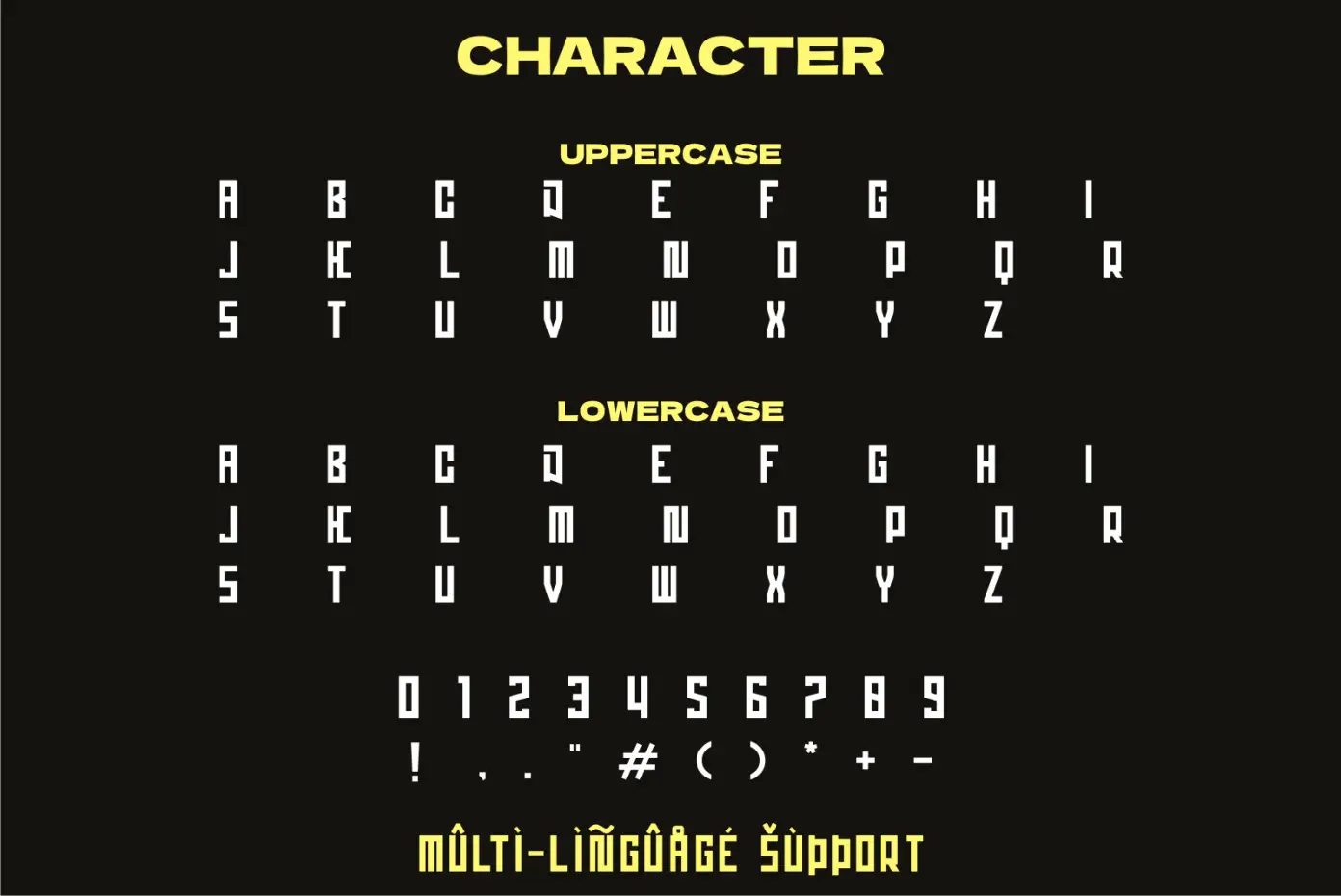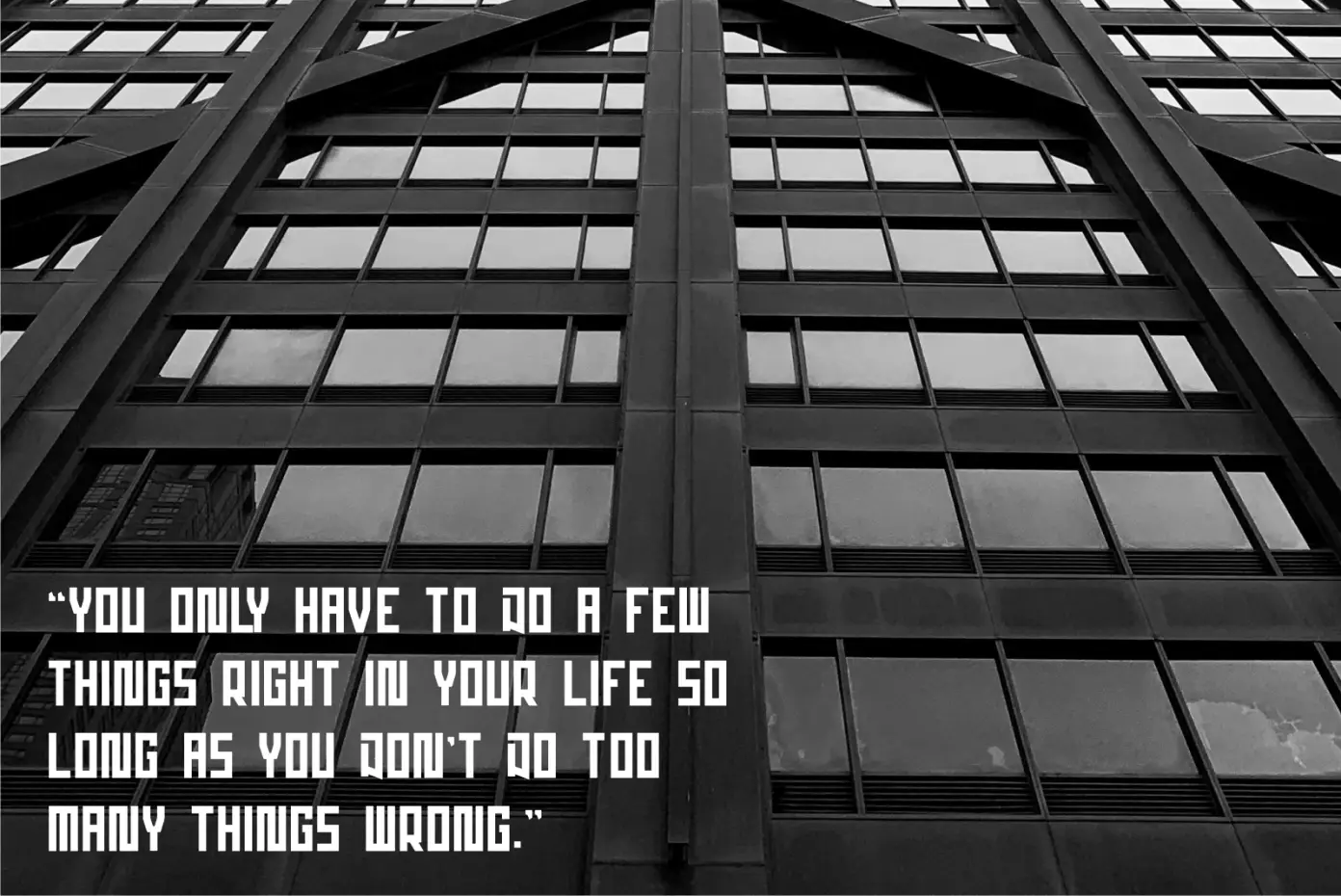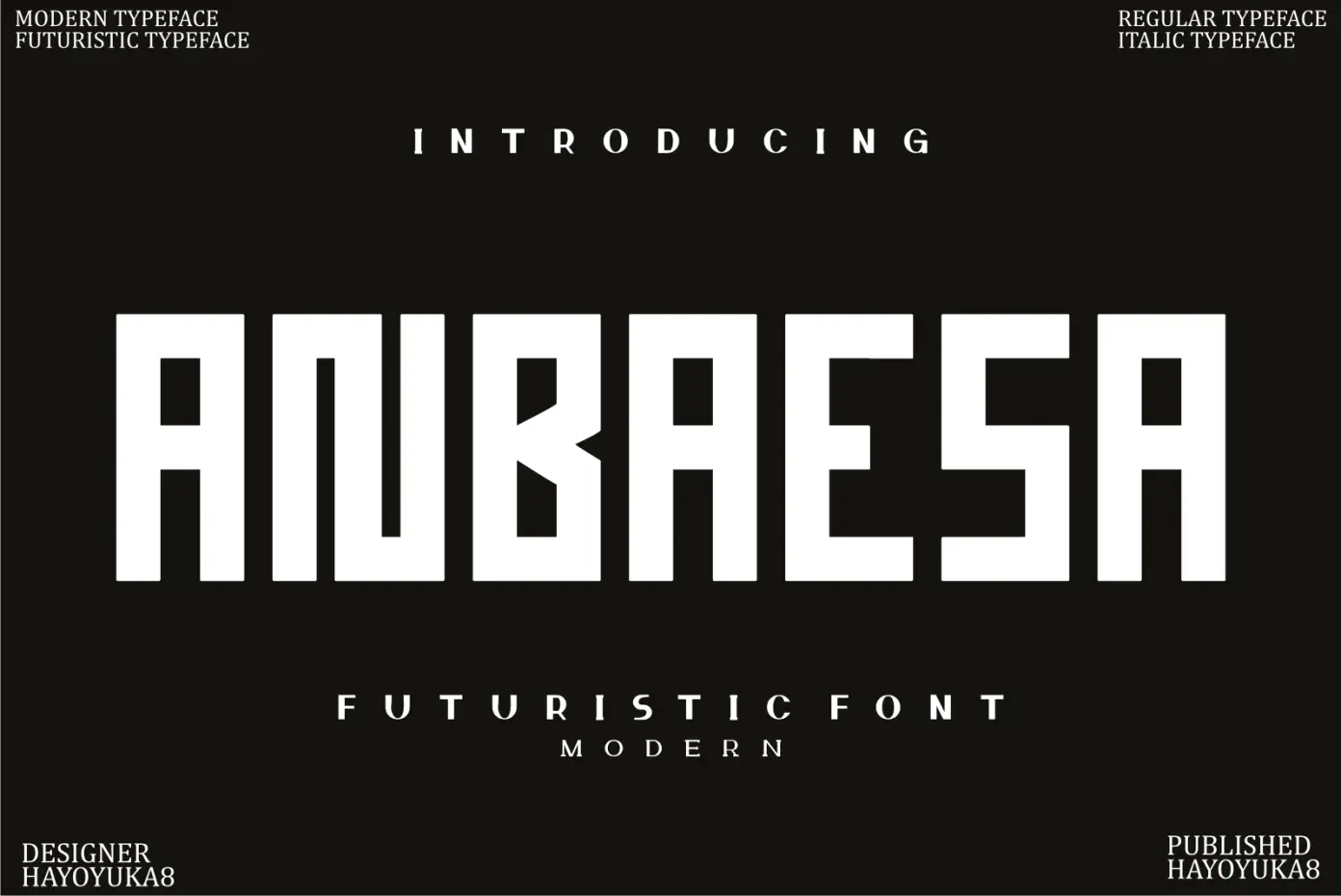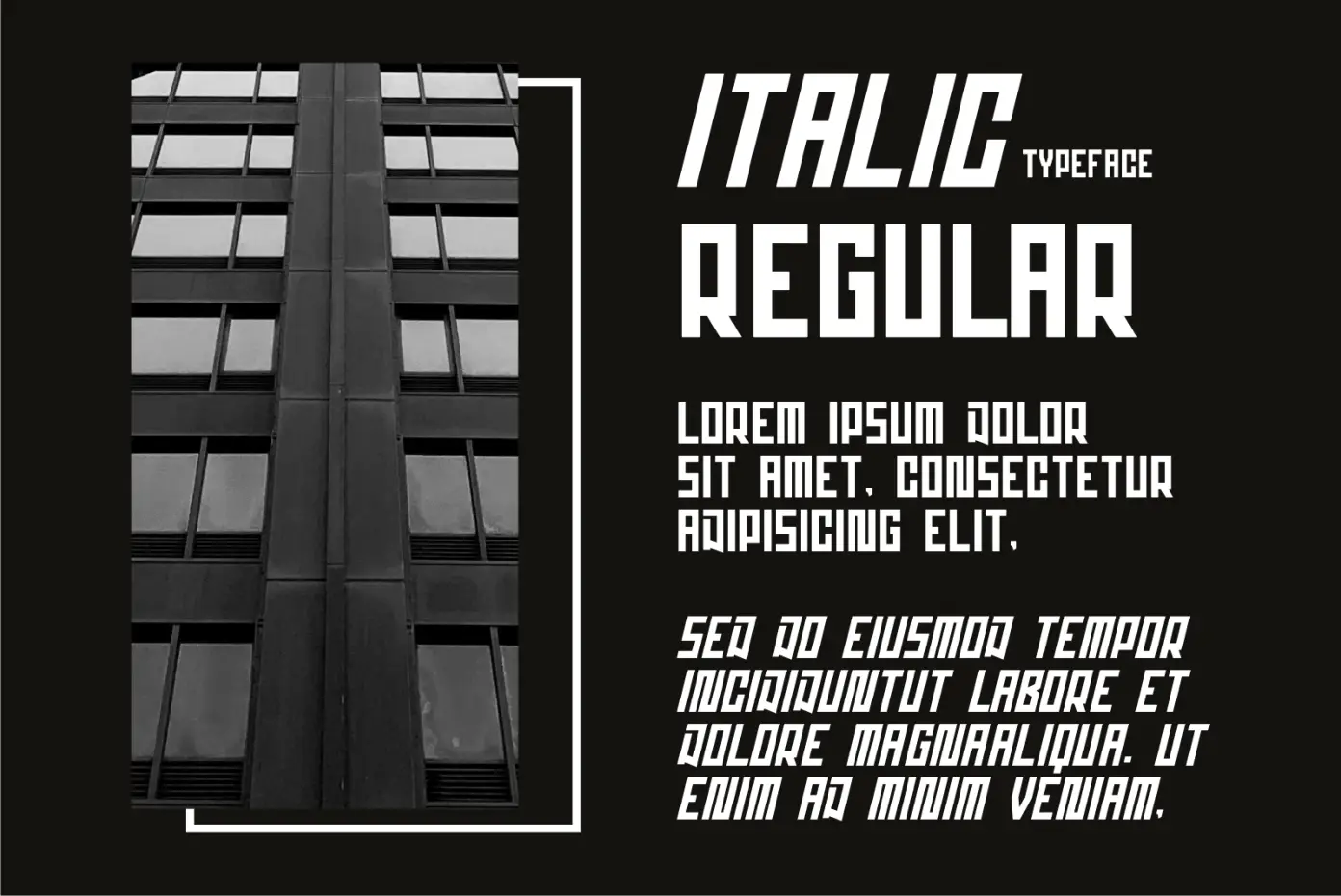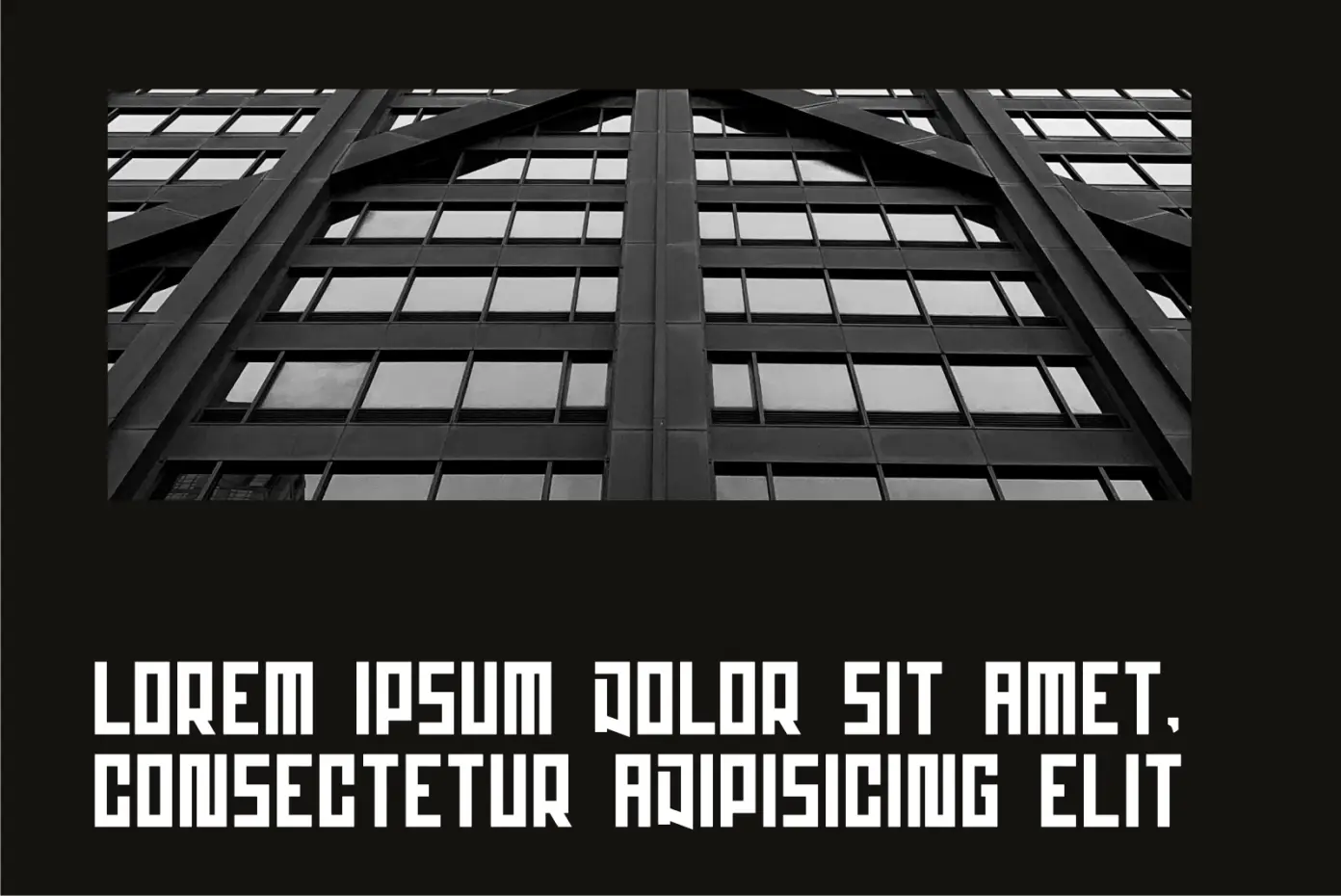
The Anbaesa Display Font is a striking typeface designed to make a bold statement. With its unique character shapes and artistic flair, this font is perfect for various creative projects.
- Stylish display font with distinctive letterforms
- Available in multiple weights for versatility
- Supports multilingual characters
- Styles: Regular, Bold
This font is ideal for branding, logos, posters, and web design, providing a unique touch to your visual projects.